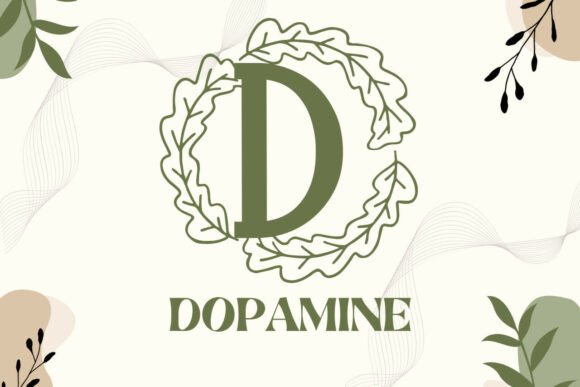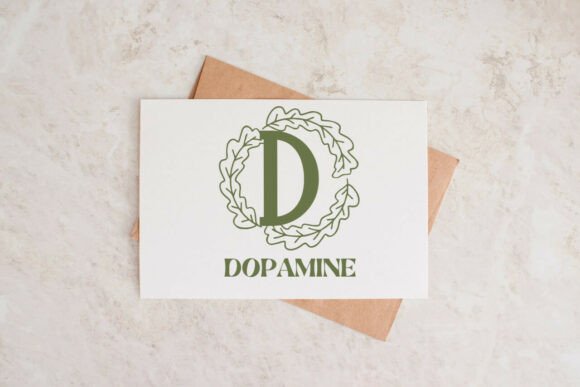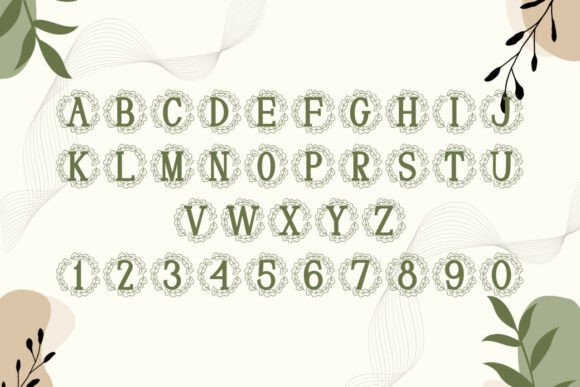
Introduction to Opalineve Monogram Font
Have you ever found yourself staring at a blank canvas, desperately searching for the perfect design element to elevate your creative project? The moment of truth arrives when you need to add a personal touch – and that’s where the Opalineve Monogram Font comes into play. This exquisite monogram font is the ultimate design resource for high-end visual assets, from wedding suites to boutique logos.
With its smooth, balanced lines and gentle curves, Opalineve Monogram Font conveys elegance without fuss, making it a valuable asset for designers. Whether you’re working on a premium packaging project or creating heirloom gifts, this font is perfect for crafting high-quality, cohesive designs. Its open counters ensure readability even on the smallest tags, and its scalable design makes it suitable for a wide range of applications, from jewelry cards to statement wall art.
Key Features of Opalineve Monogram Font
- High-quality design resource for creative projects, ideal for logos, branding, and more.
- Unique, hand-drawn style with a transparent background, allowing for versatility in design applications.
- Perfect for designers seeking a distinctive and elegant monogram font to elevate their creative project.
Honest Review: Opalineve Monogram Font
As a designer, I’m always on the lookout for high-quality design resources to elevate my creative projects. The Opalineve Monogram Font is one such find that I’m excited to share with you. This beautiful monogram font is available for a free download, making it an excellent addition to any designer’s toolkit.
- ✨ The font’s elegant and sophisticated design makes it perfect for luxury brands and high-end projects.
- ✨ The transparent background option allows for seamless integration with any background image or color.
- ✨ The font is highly customizable, making it easy to adjust to fit your specific design needs.
- ⚠️ The font may not be suitable for casual or playful designs, as it has a more formal tone.
- ⚠️ Some users may find the font a bit too ornate, which could be overwhelming in certain designs.
Overall, I’m impressed with the Opalineve Monogram Font. Its high-quality design and flexibility make it a valuable resource for any designer working on a creative project. While it may have some limitations, I believe it’s a great addition to any design toolkit.
The Opalineve Monogram Font is ideal for use in business cards, invitations, and other marketing materials. Its high-quality design and transparent background make it perfect for use in presentations and designs that require a professional and polished look.